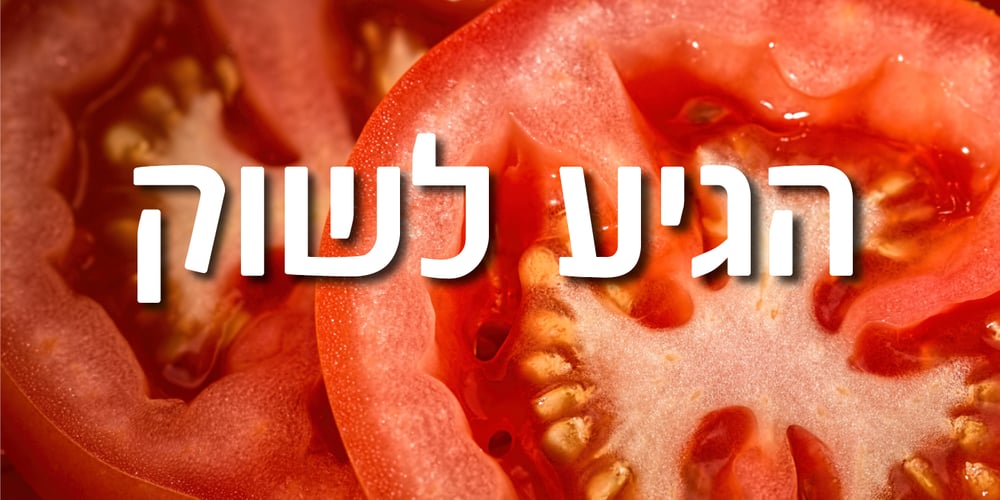
Printer MF
Printer MF font
Printer MF Font Family was designed by Zvika Rosenberg and published by Masterfont. Printer MF contains 3 styles and family package options. Elegant high rounded edges elegant – mainly used for titles and signage.